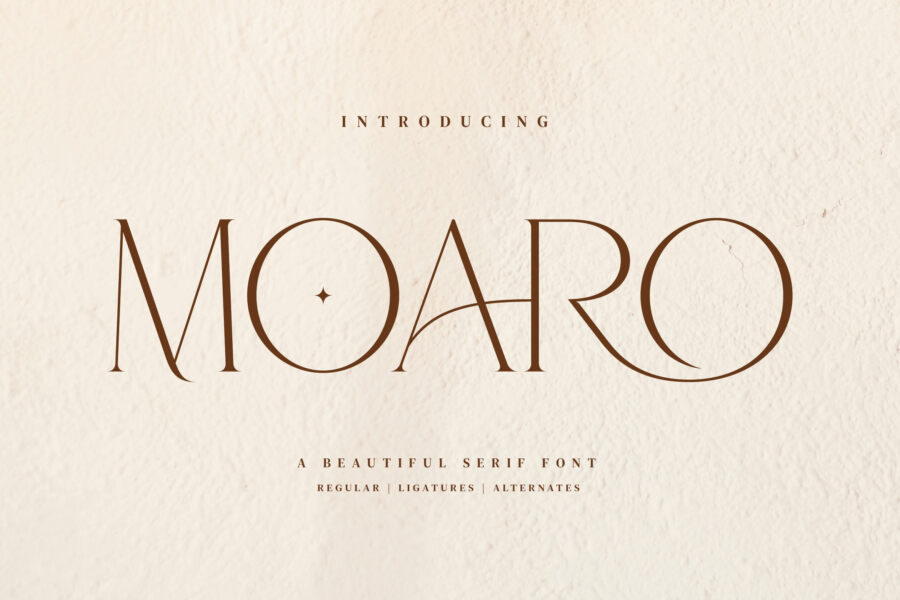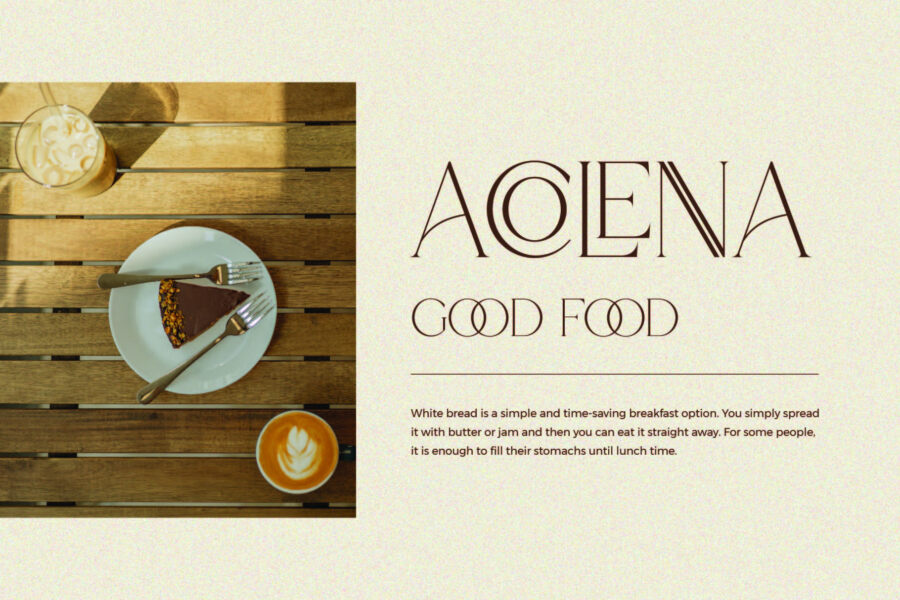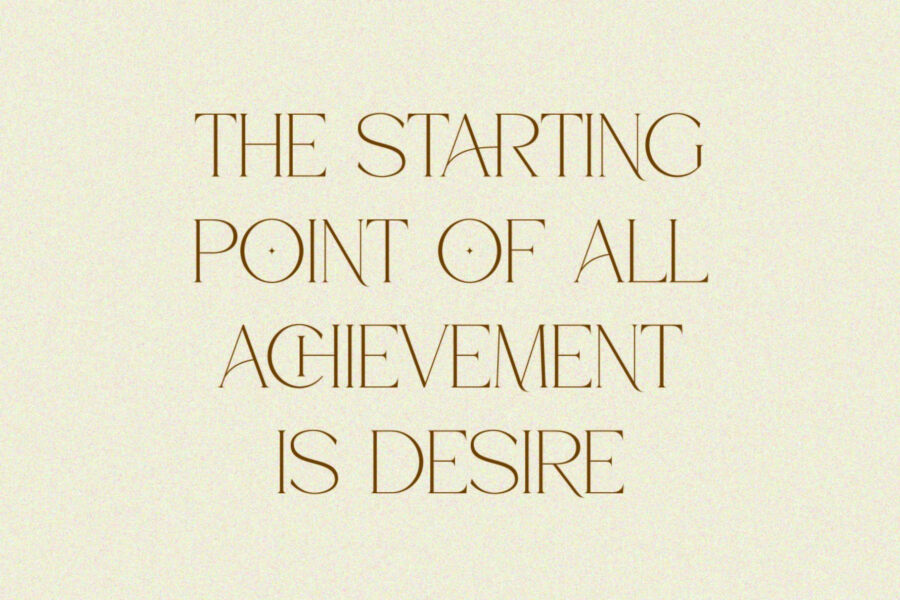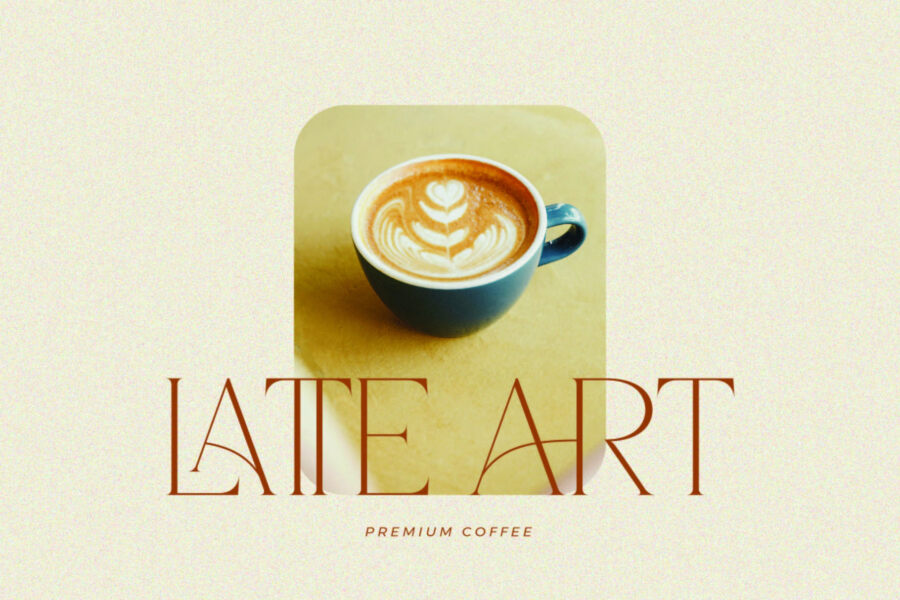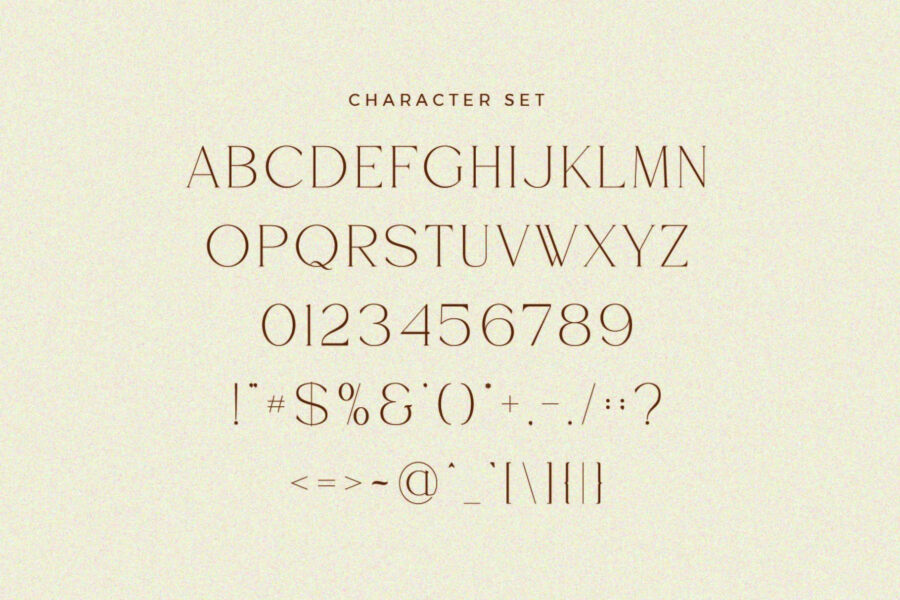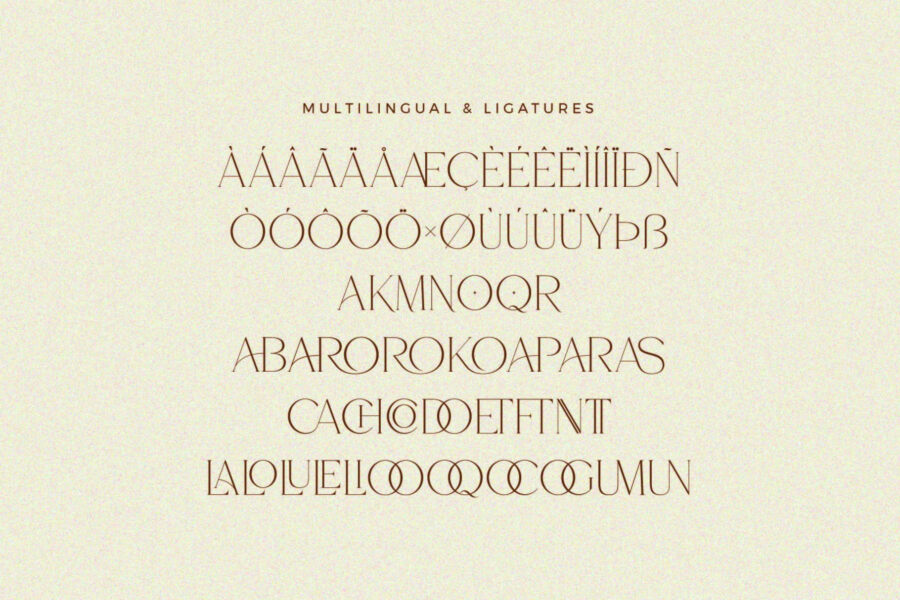
Moaro Font
Moaro is a chic, serif font that draws inspiration from minimalist design. It’s ideal for creating various visual materials, such as templates, brochures, videos, and advertisements, as well as logos and branding elements.